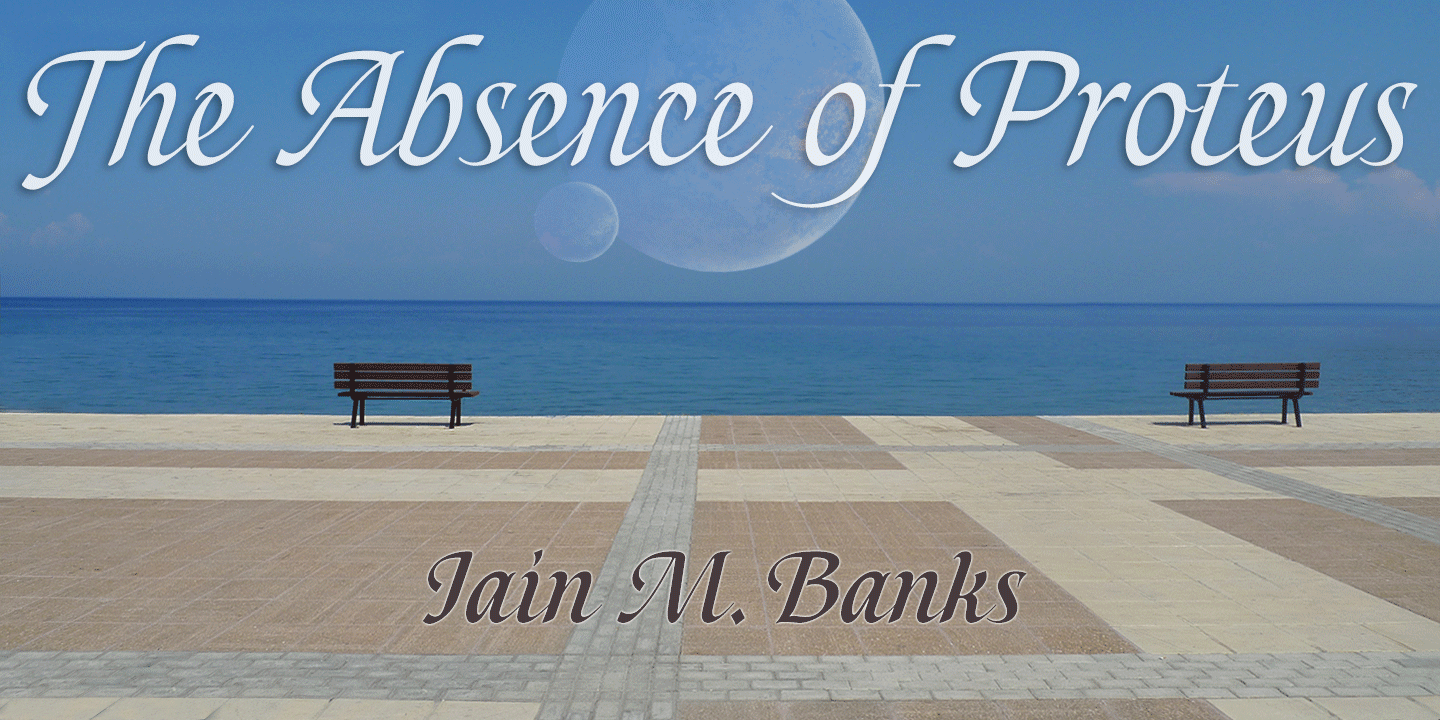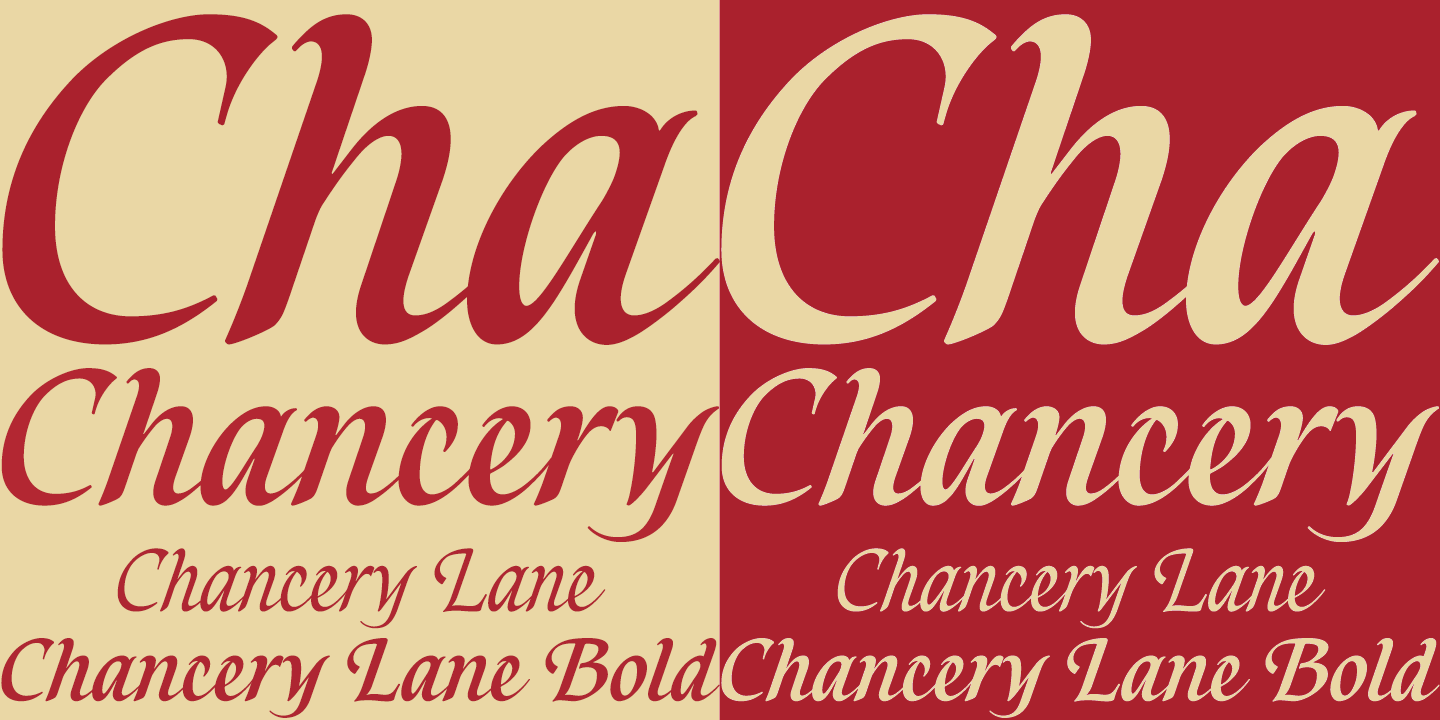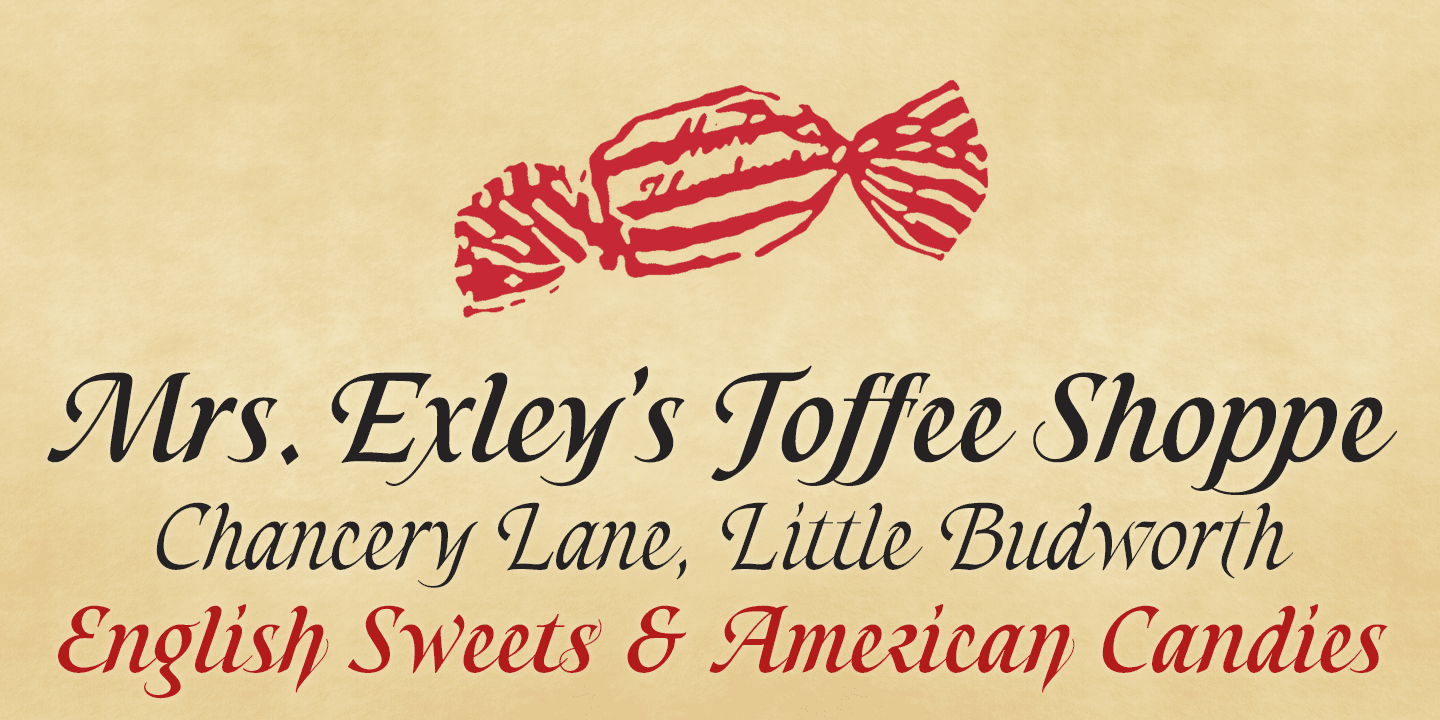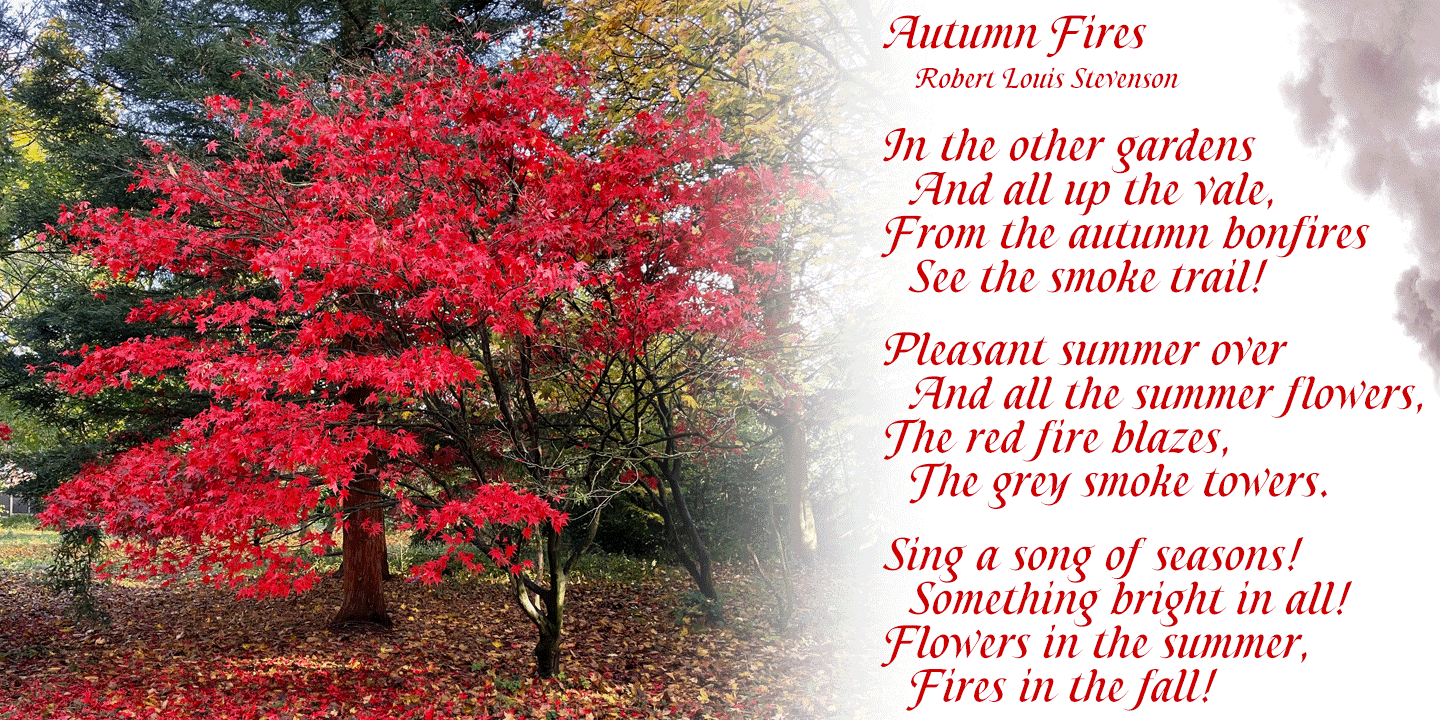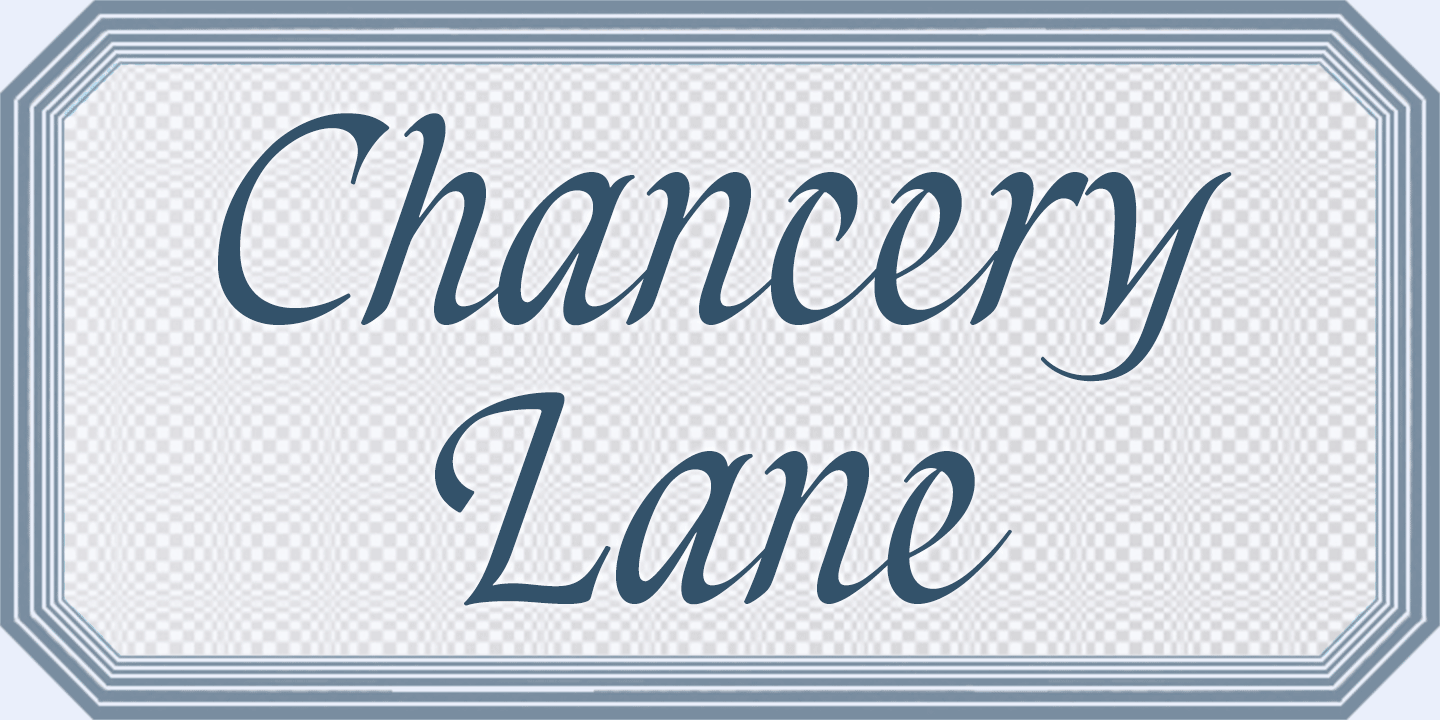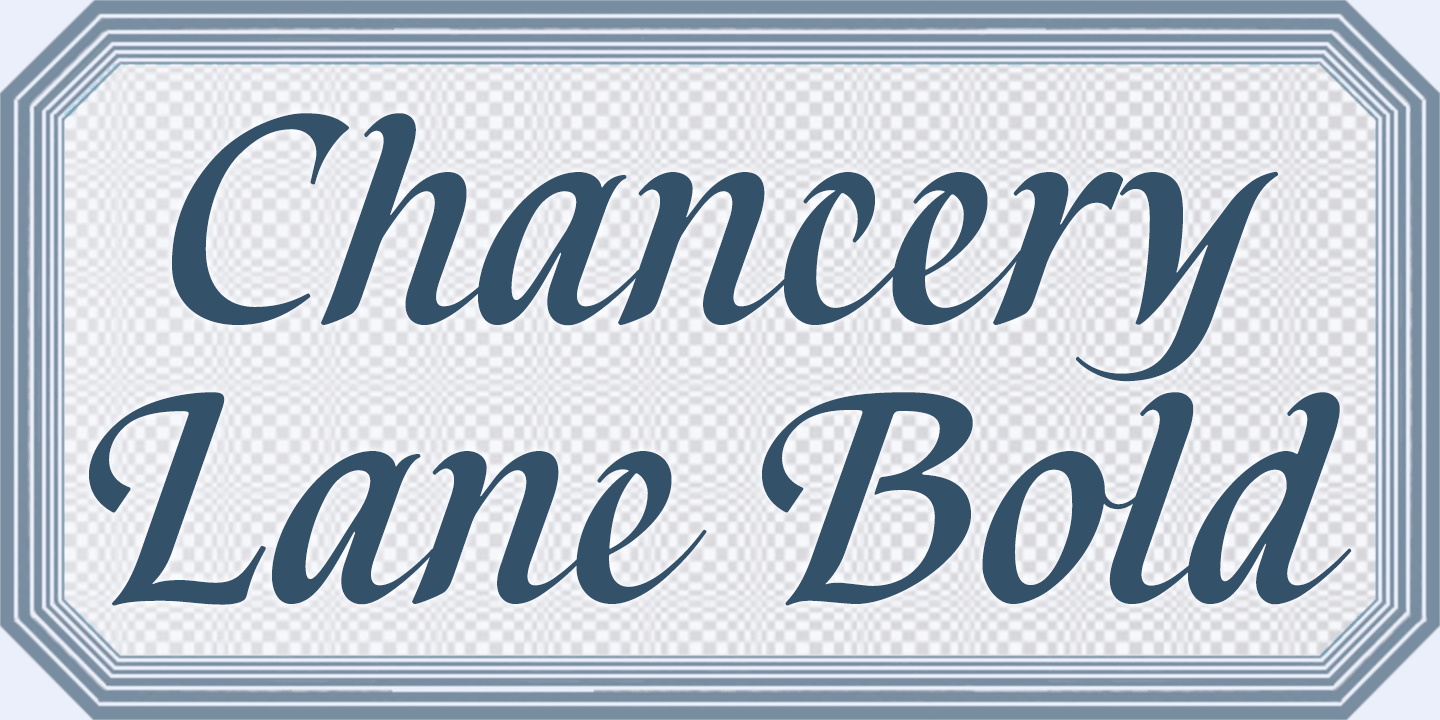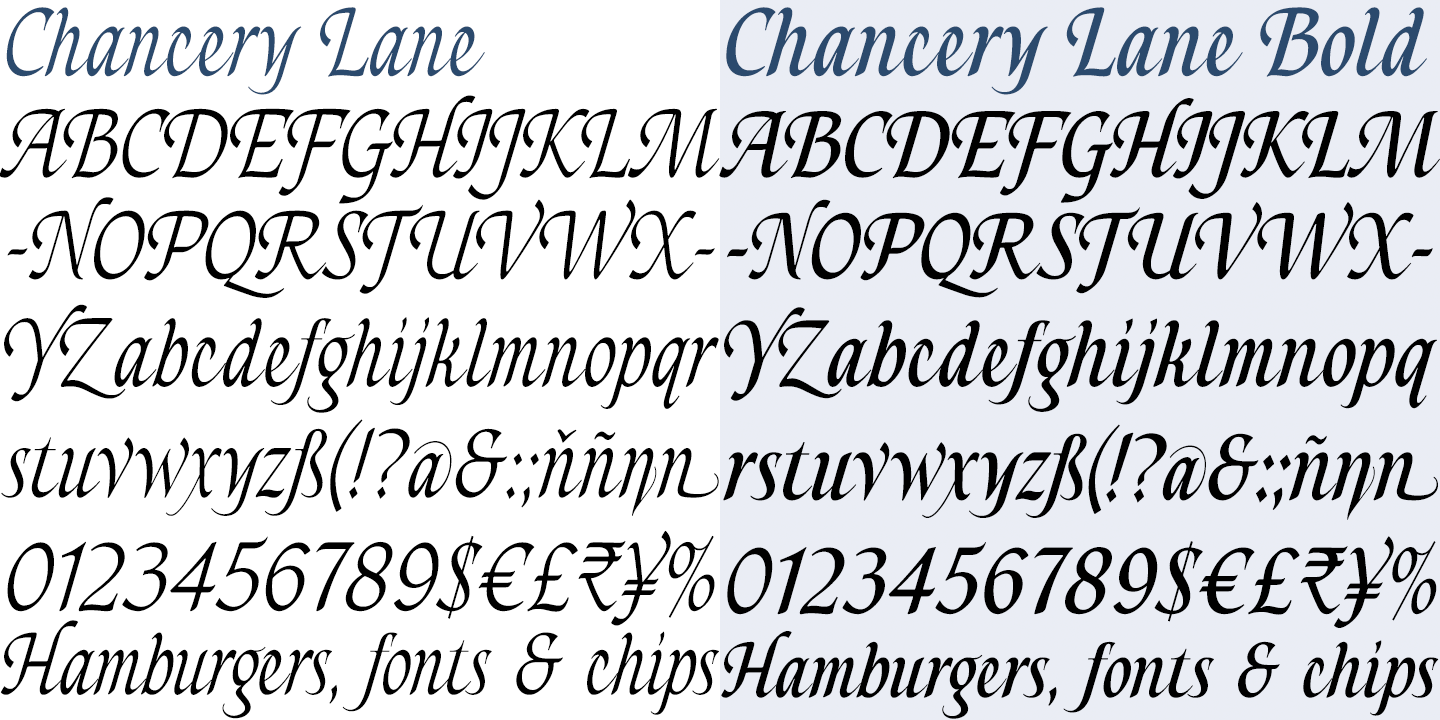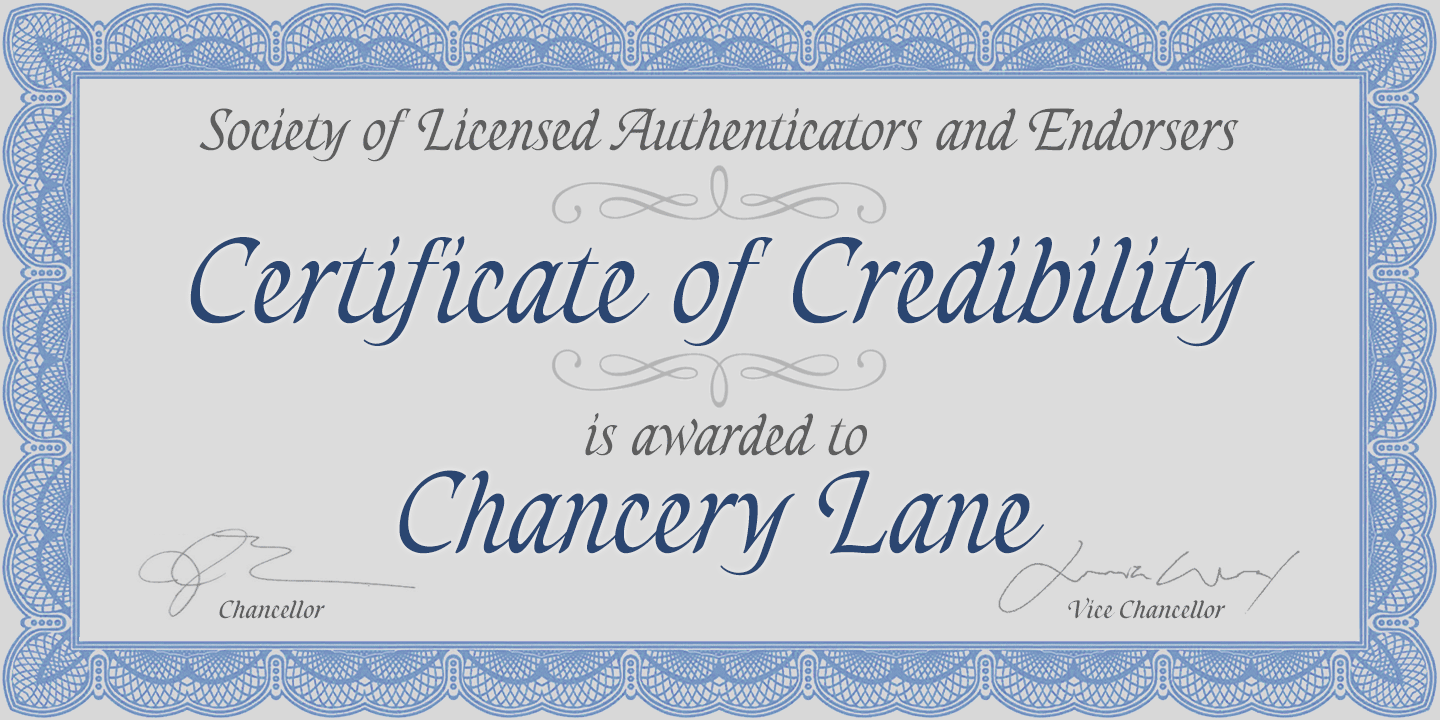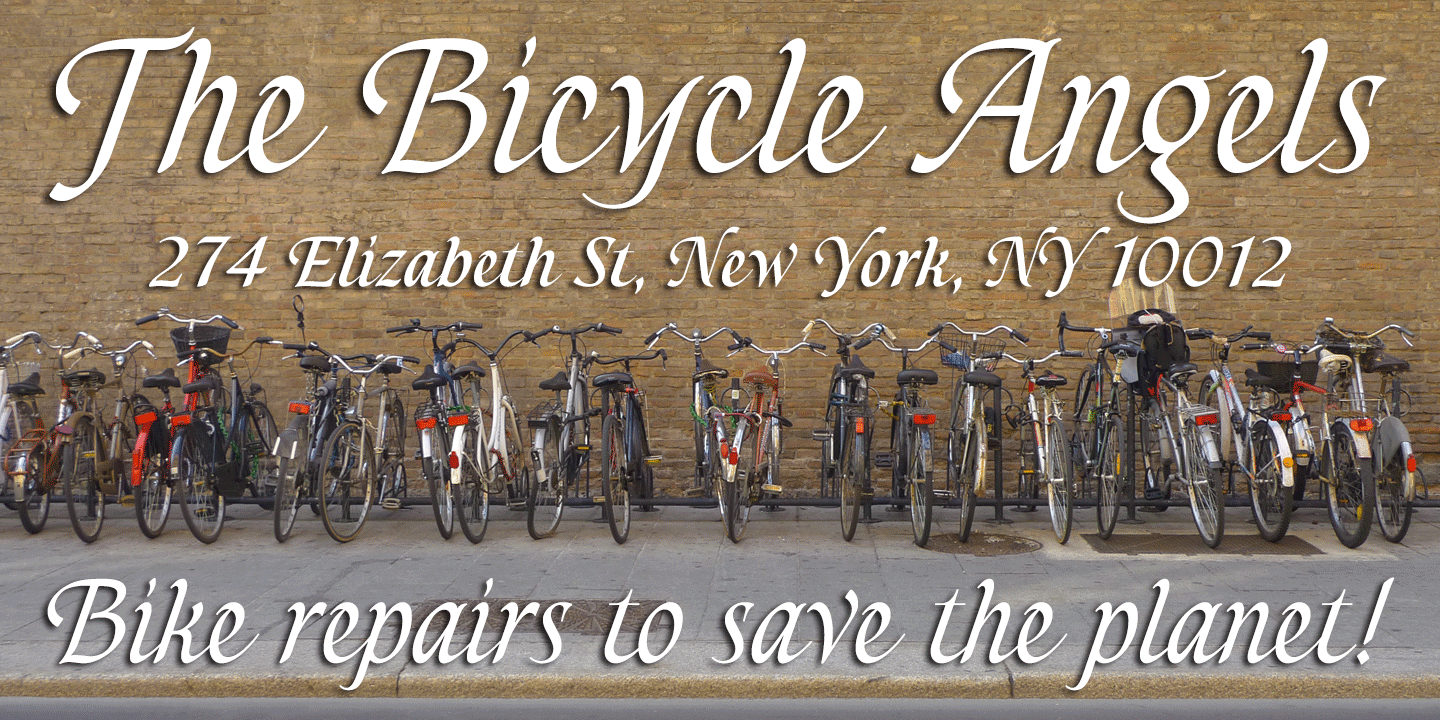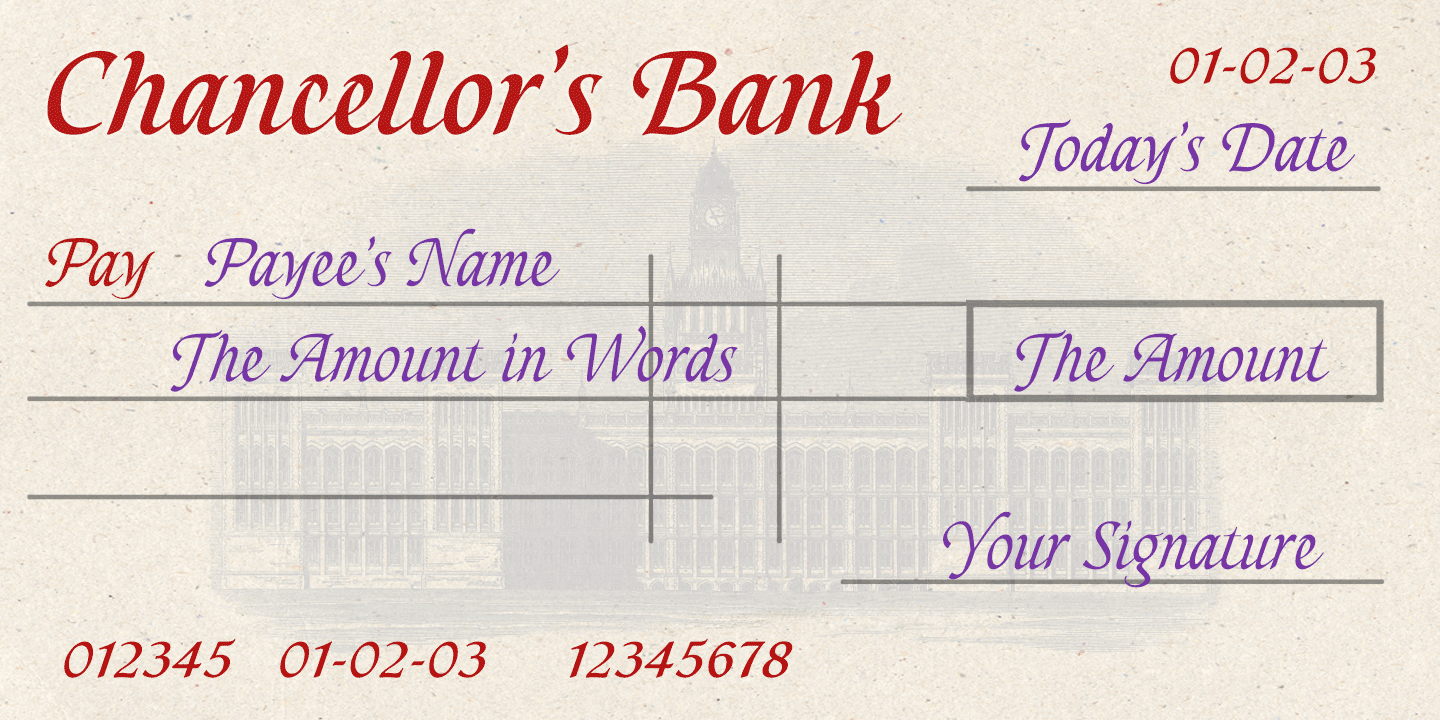
Chancery Lane
Chancery Lane is a condensed cursive with a breezy, flowing feel. Many of the lowercase characters join up, some uppercase ones too, and the two fonts are slantier than many other chancery-inspired faces, inclined at almost 20